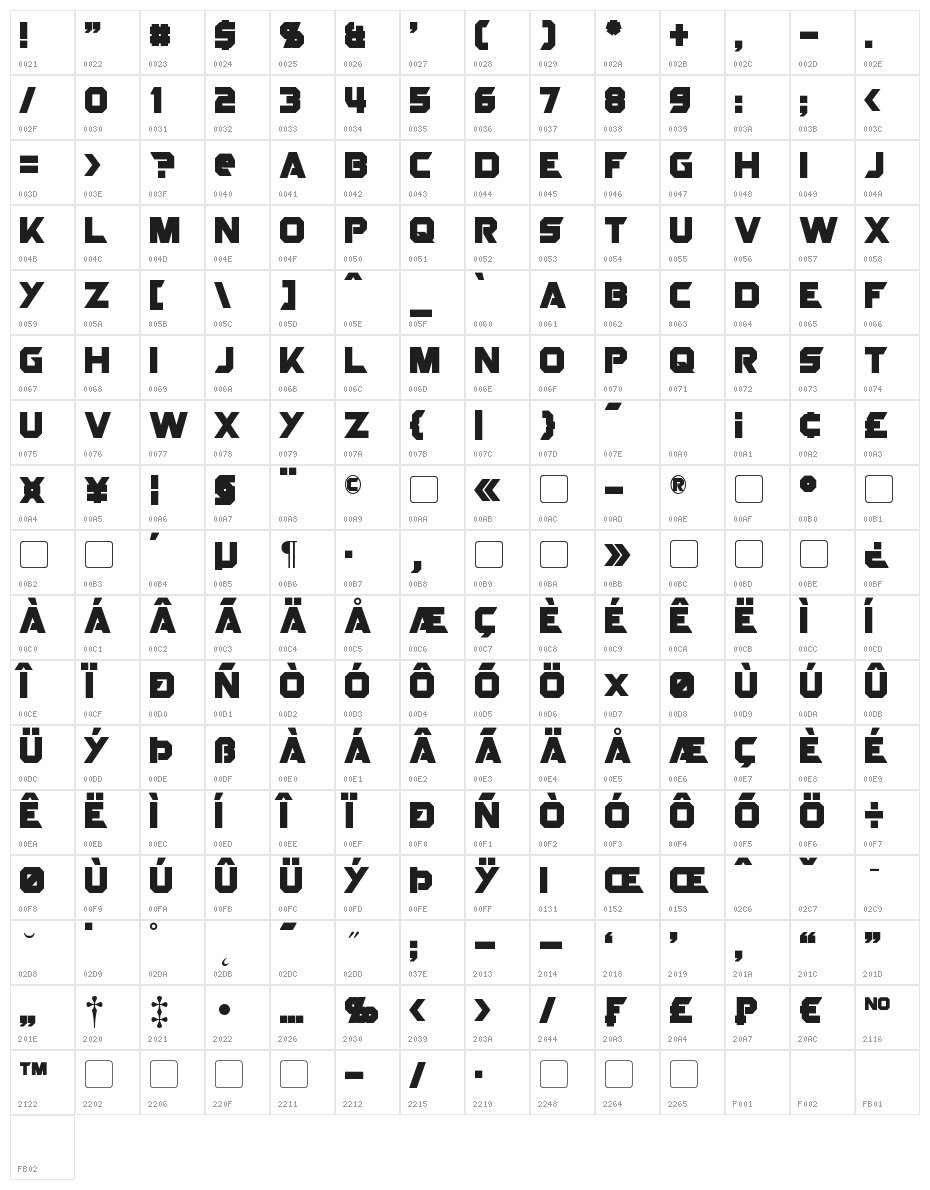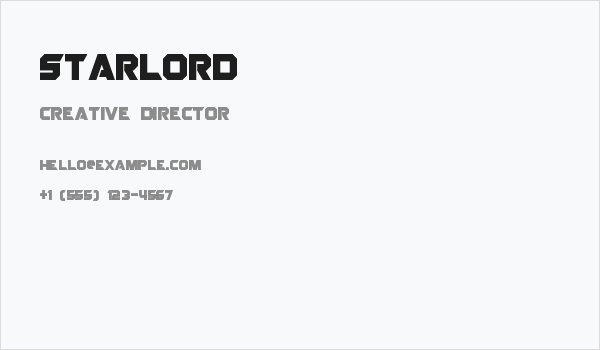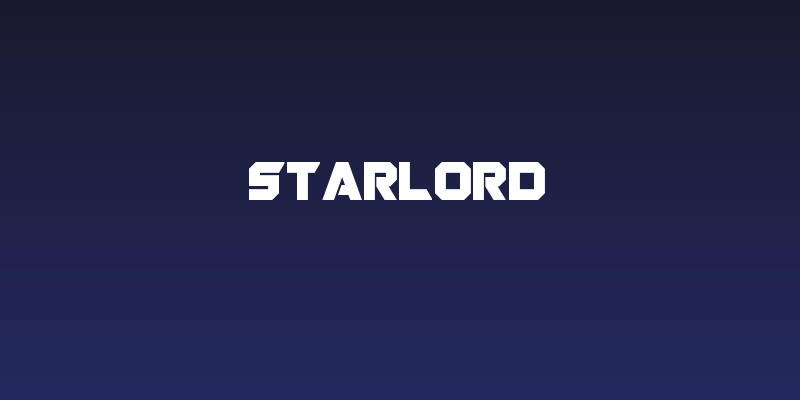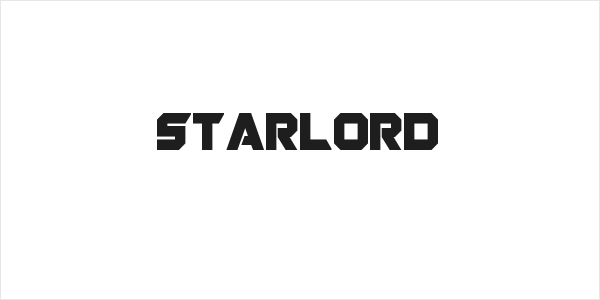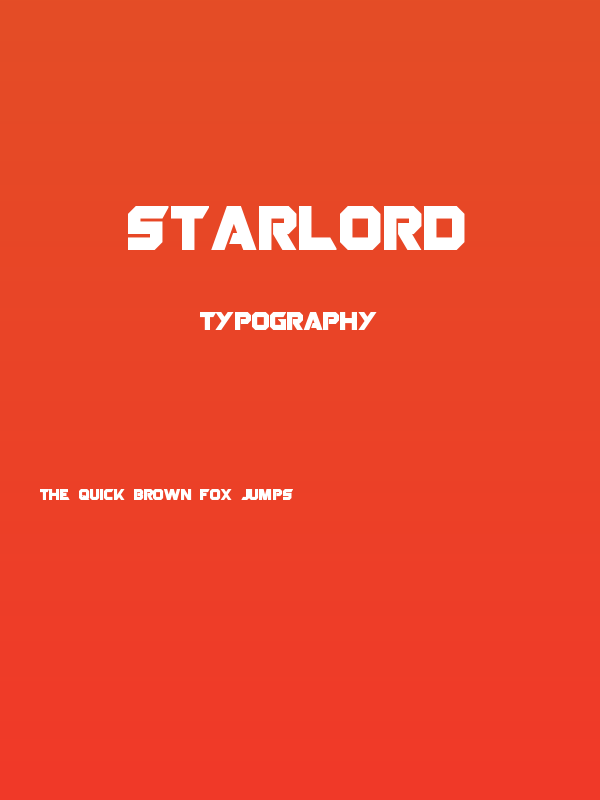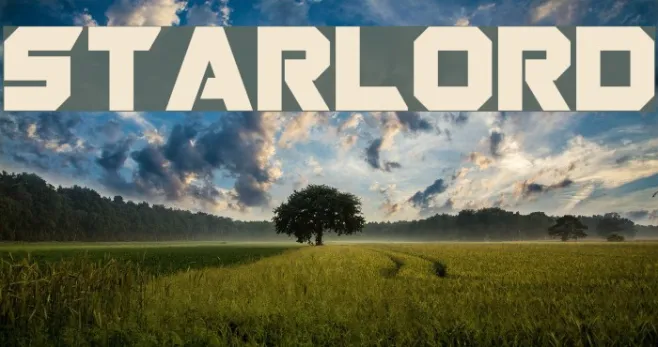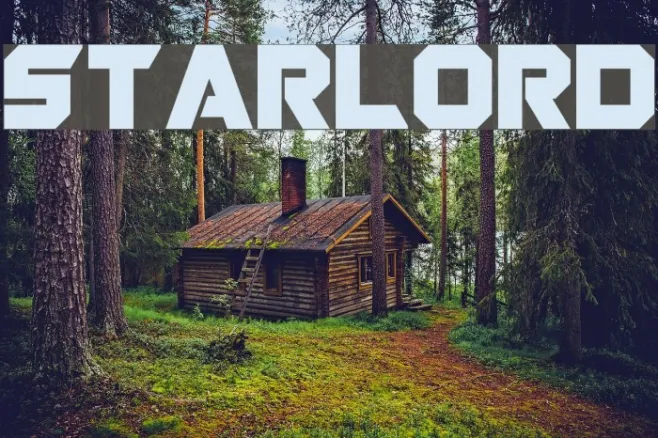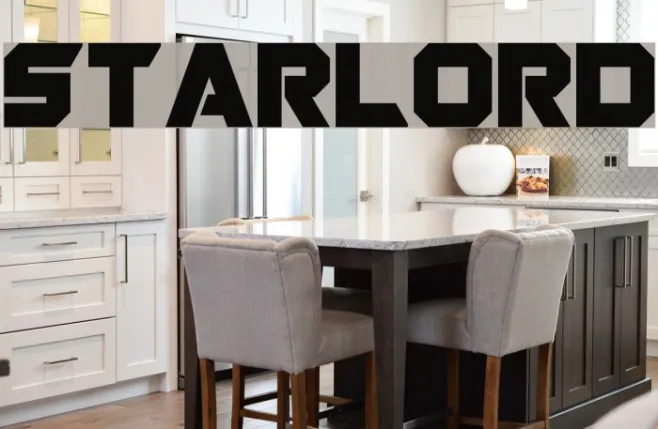
Starlord Font
Starlord Description
This font features a bold, geometric design with sharp, angular edges and a futuristic aesthetic. The uppercase and lowercase letters maintain a consistent width, creating a uniform appearance. The numbers and special characters follow the same angular style, ensuring cohesiveness across all elements. The font's strong presence and unique style make it ideal for attention-grabbing designs. Its boldness and geometric shapes convey a sense of modernity and strength, making it suitable for projects that require a standout visual impact.
| Proposed Projects | Ideal for sci-fi themed posters, video game titles, branding for tech companies, and futuristic event flyers. |